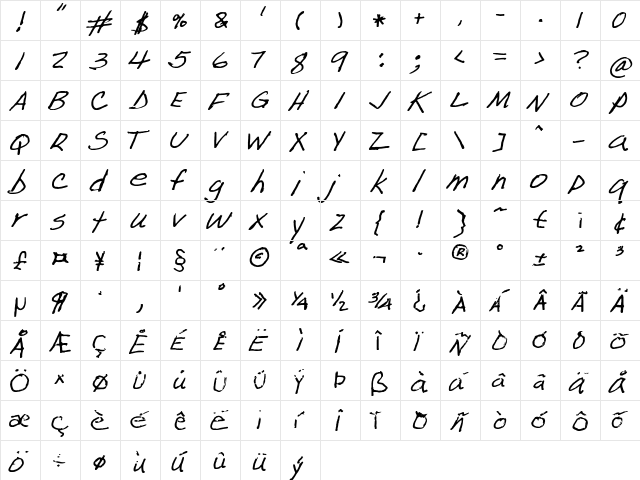
FG Paul Regular
Design Context for FG Paul Typeface
FG Paul is a composed and adaptable typeface that performs quietly and consistently across a wide range of design contexts.